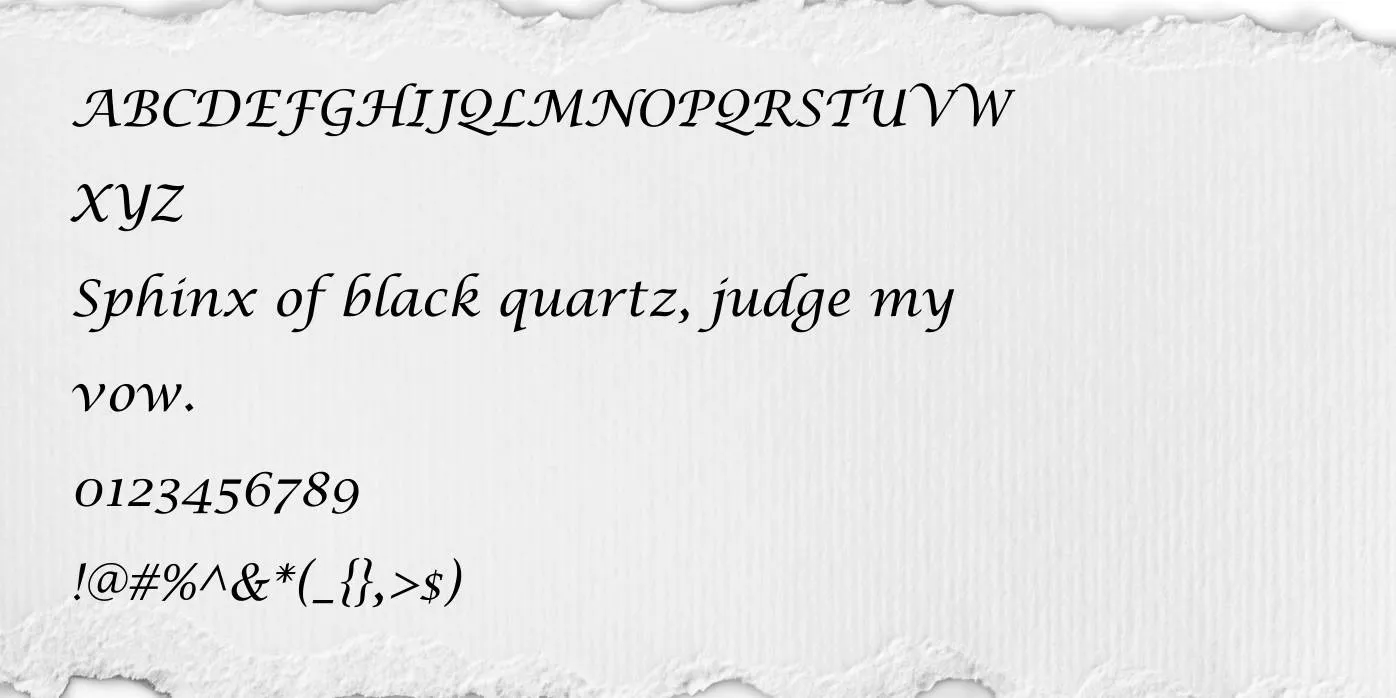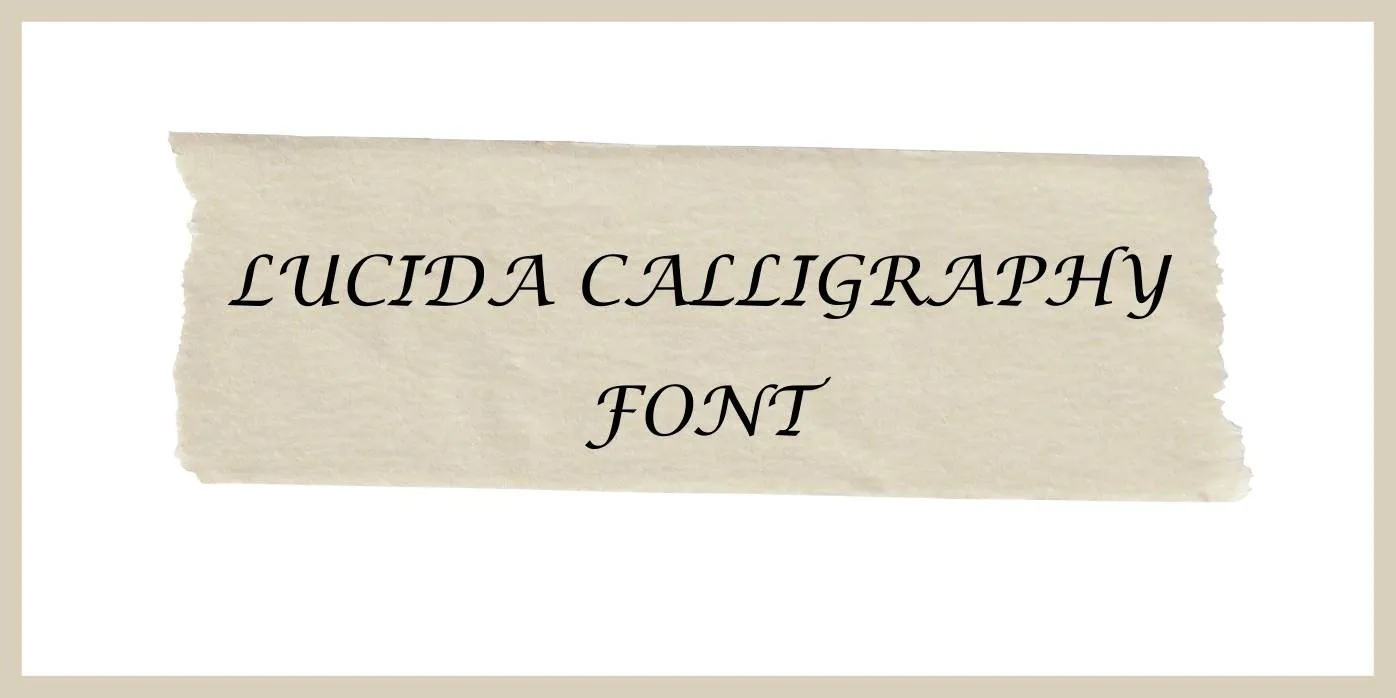
Lucida Calligraphy Font
Introducing the beautiful typeface that has handwriting characters with a fancy touch. This typeface belongs to a Calligraphy Fonts family and the designers of this luxury typeface are Kris Holmes and Charles Bigelow. The loyal font family has very useful Uppercase and Lowercase Letters, Numbers, Symbols, and many utilitarian symbols also. The font has TTF features and is ready to download.
This font supports many languages so that people from many countries can easily use it on their projects. It is free for personal use only and has the TrueType feature only. It is most similar to the Bernadette Font. The characters of this font have a very masterpiece shape that touches the heart of every designer and viewer.